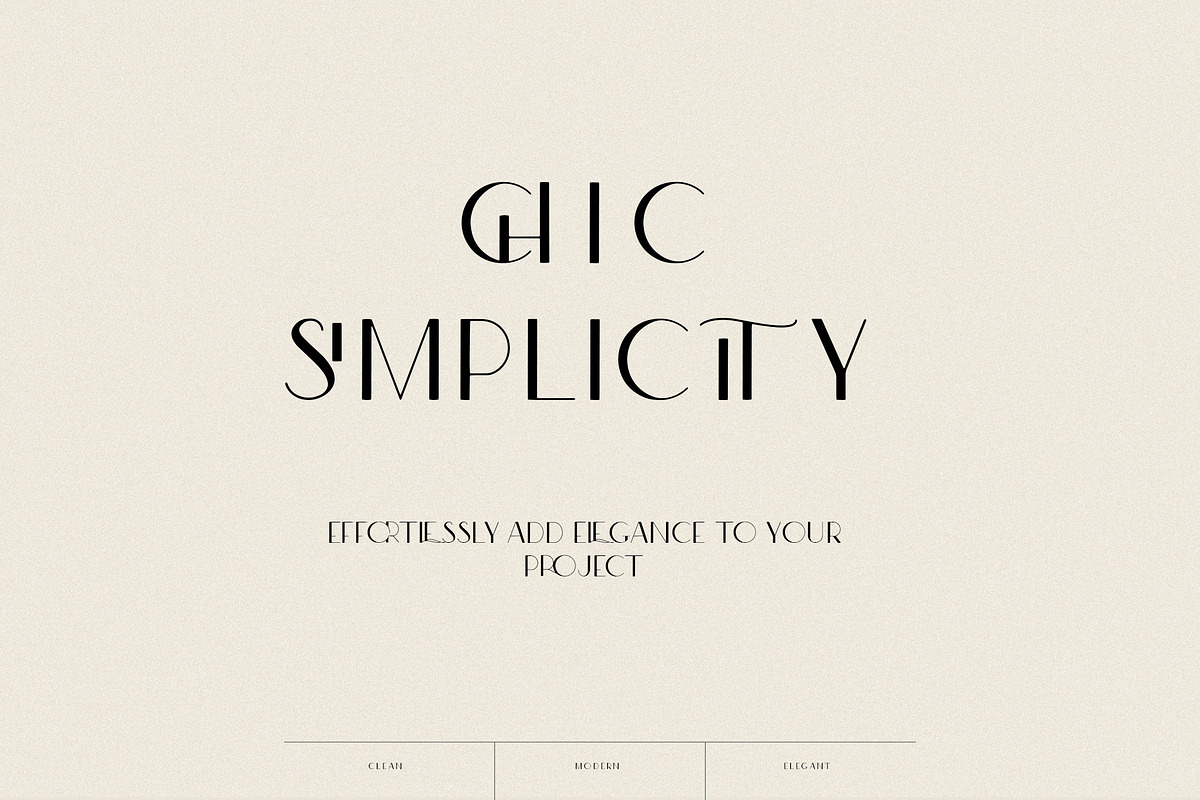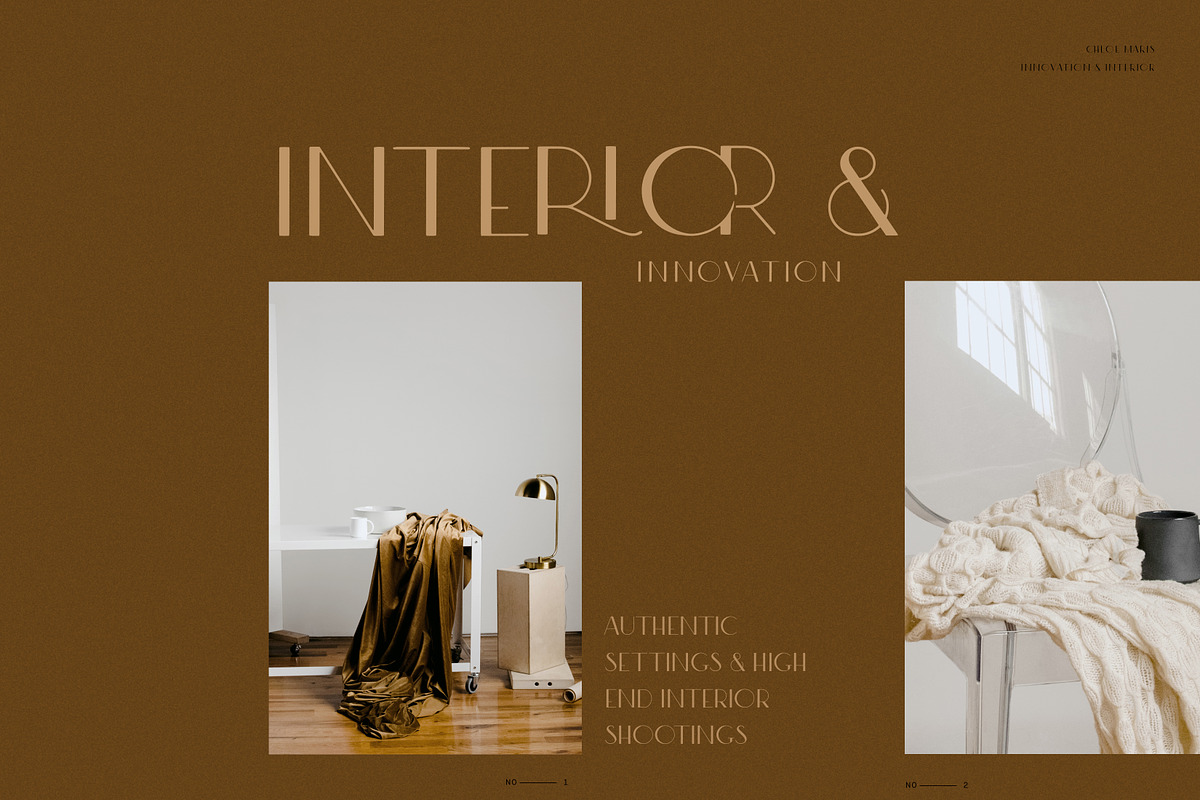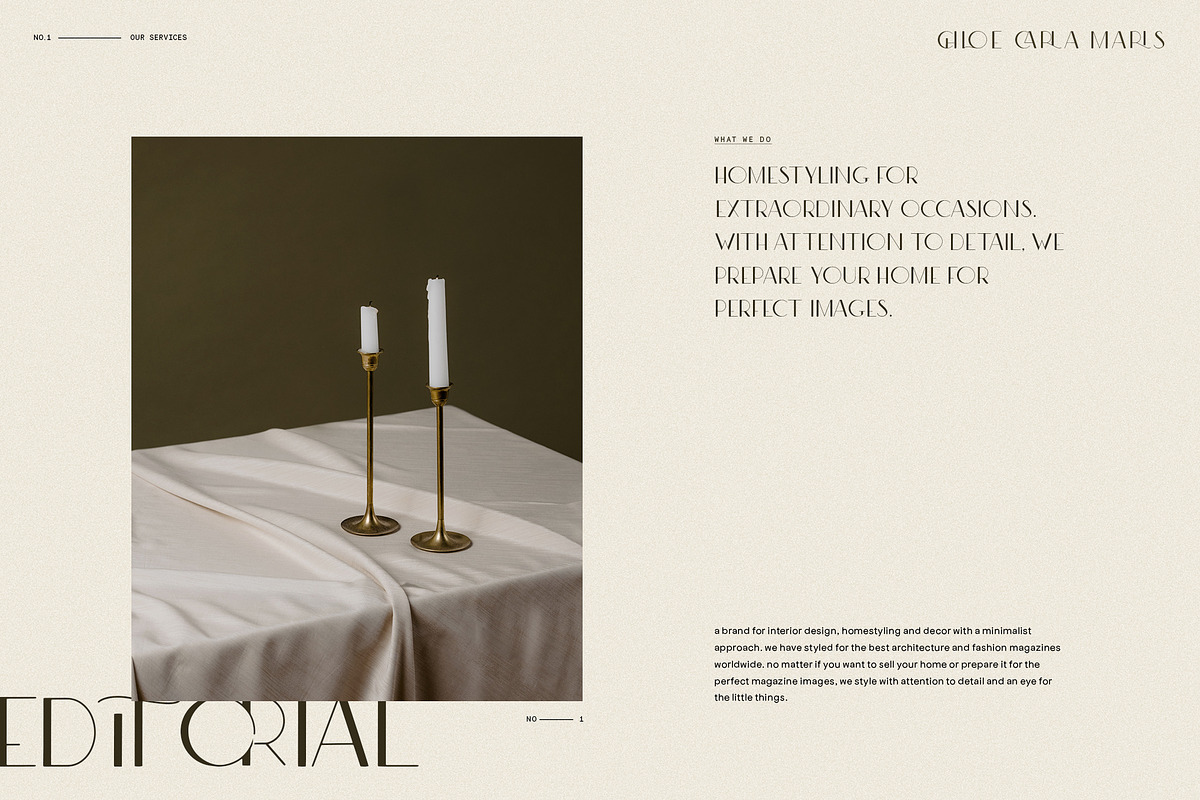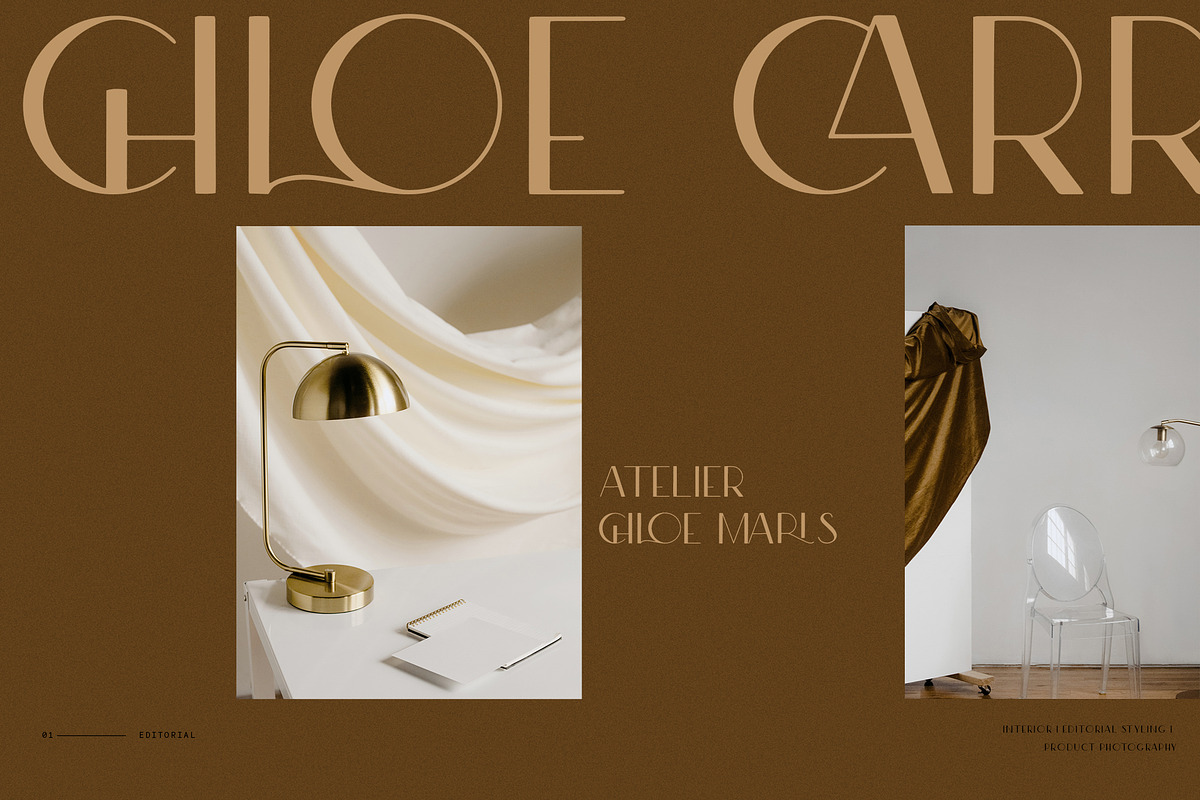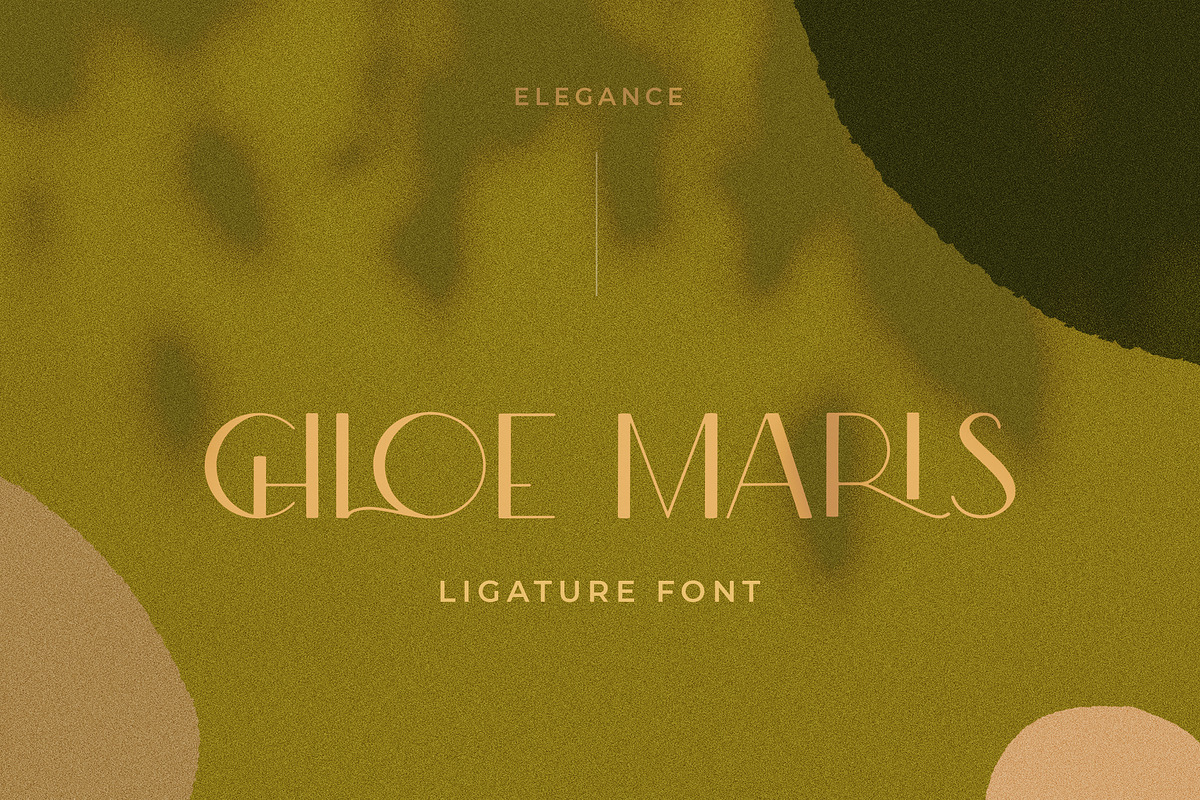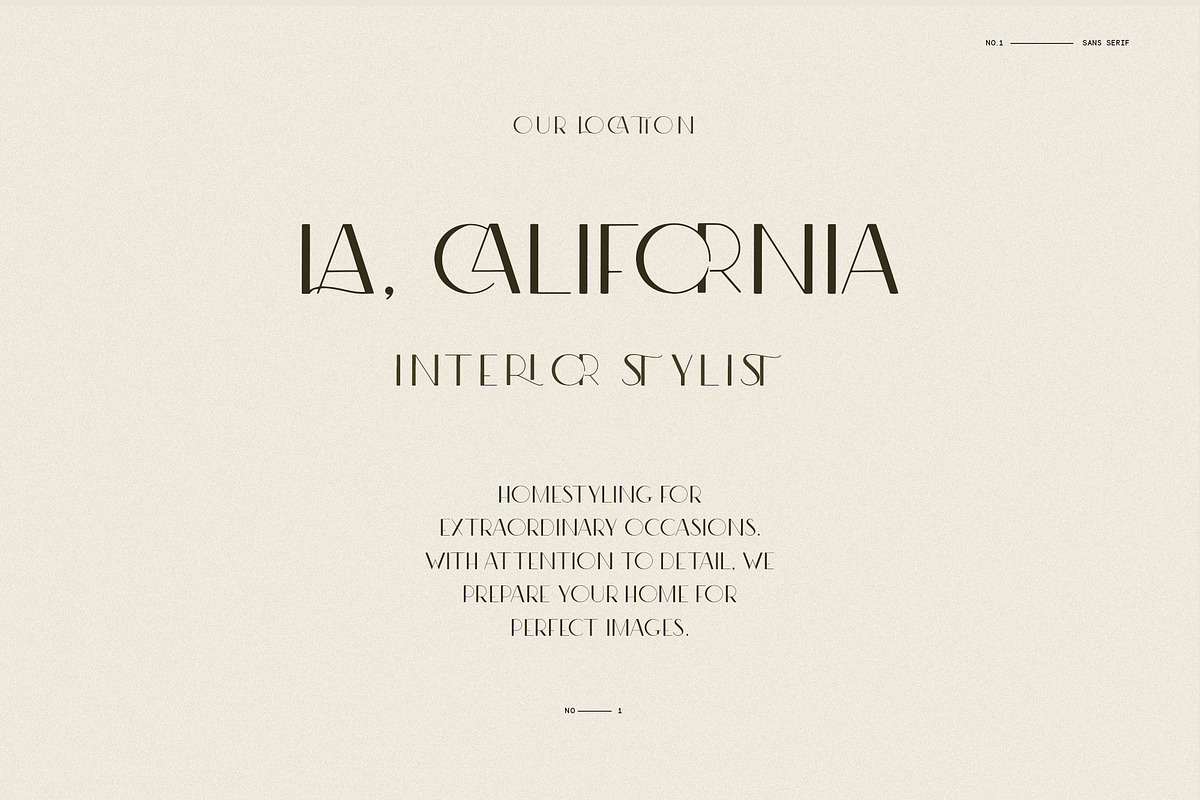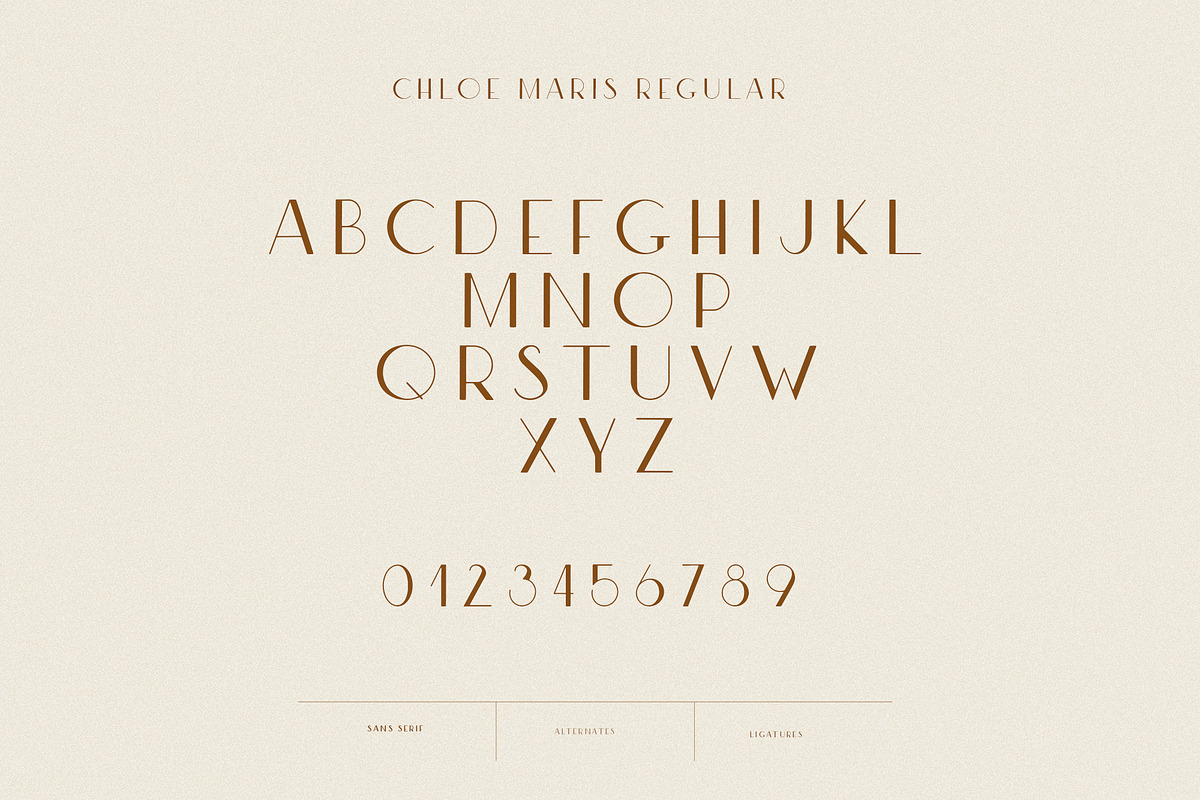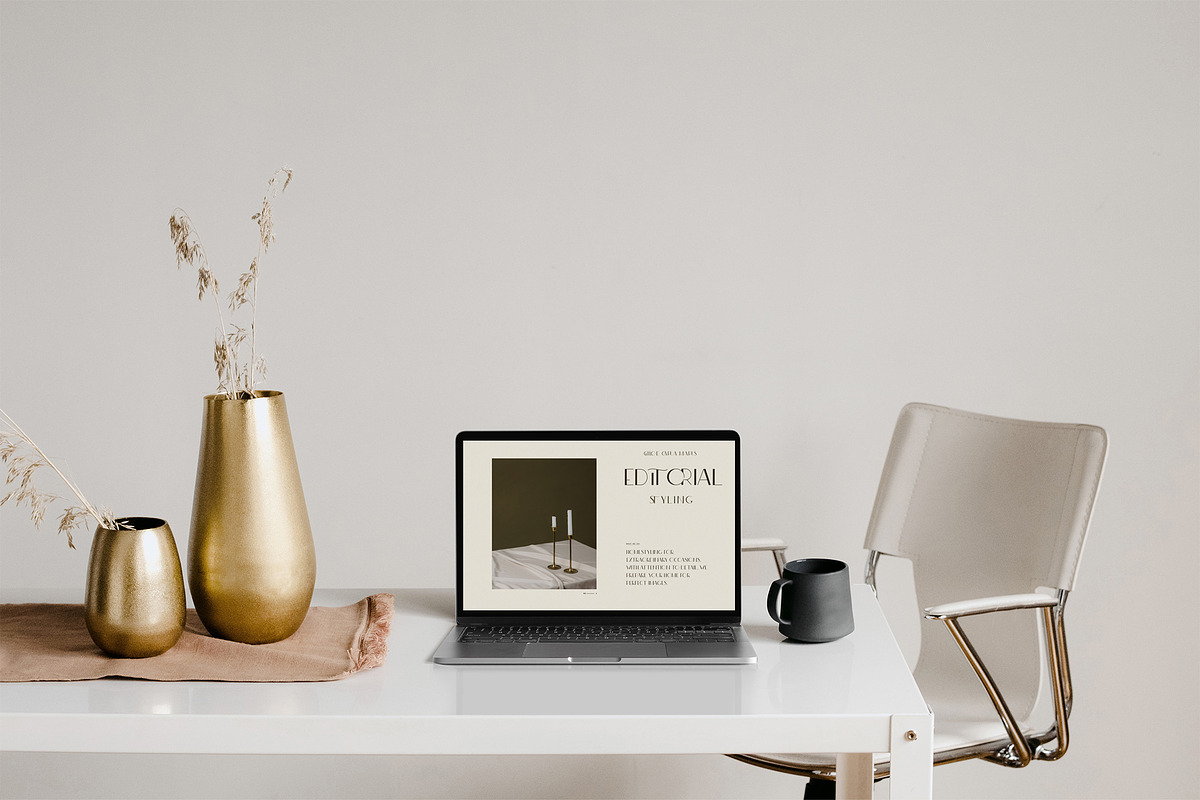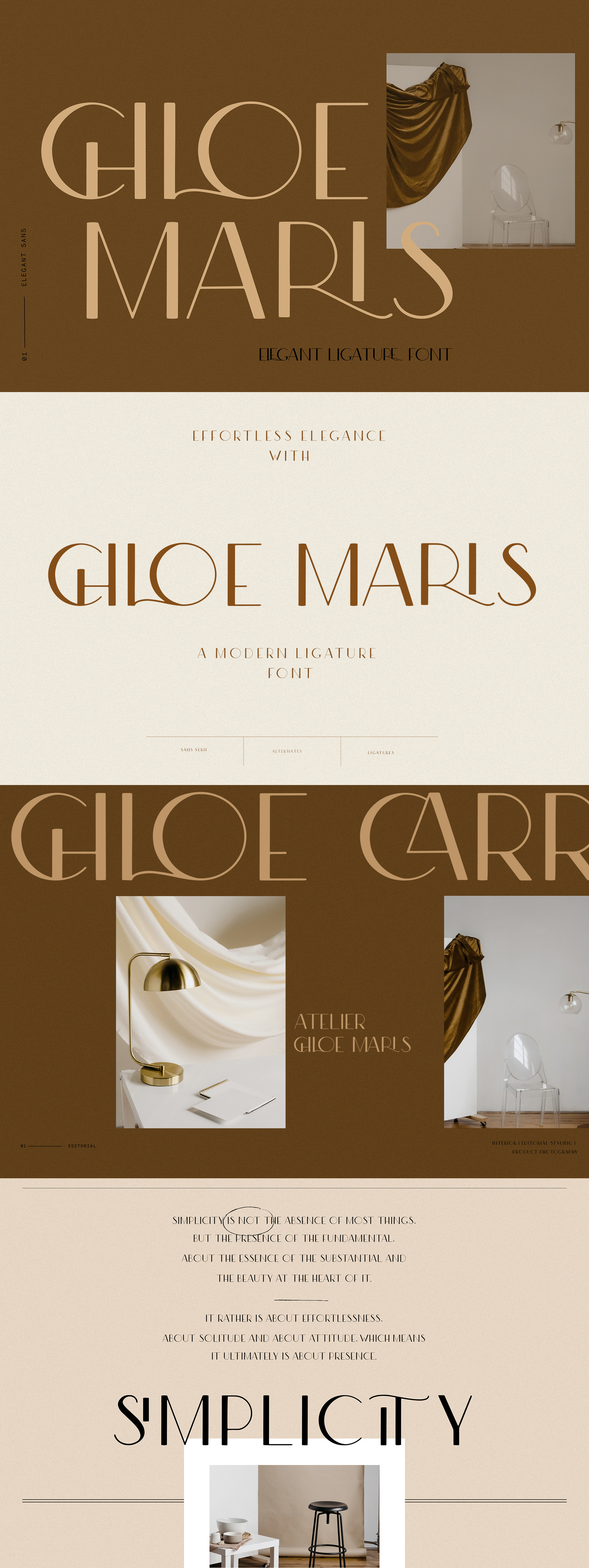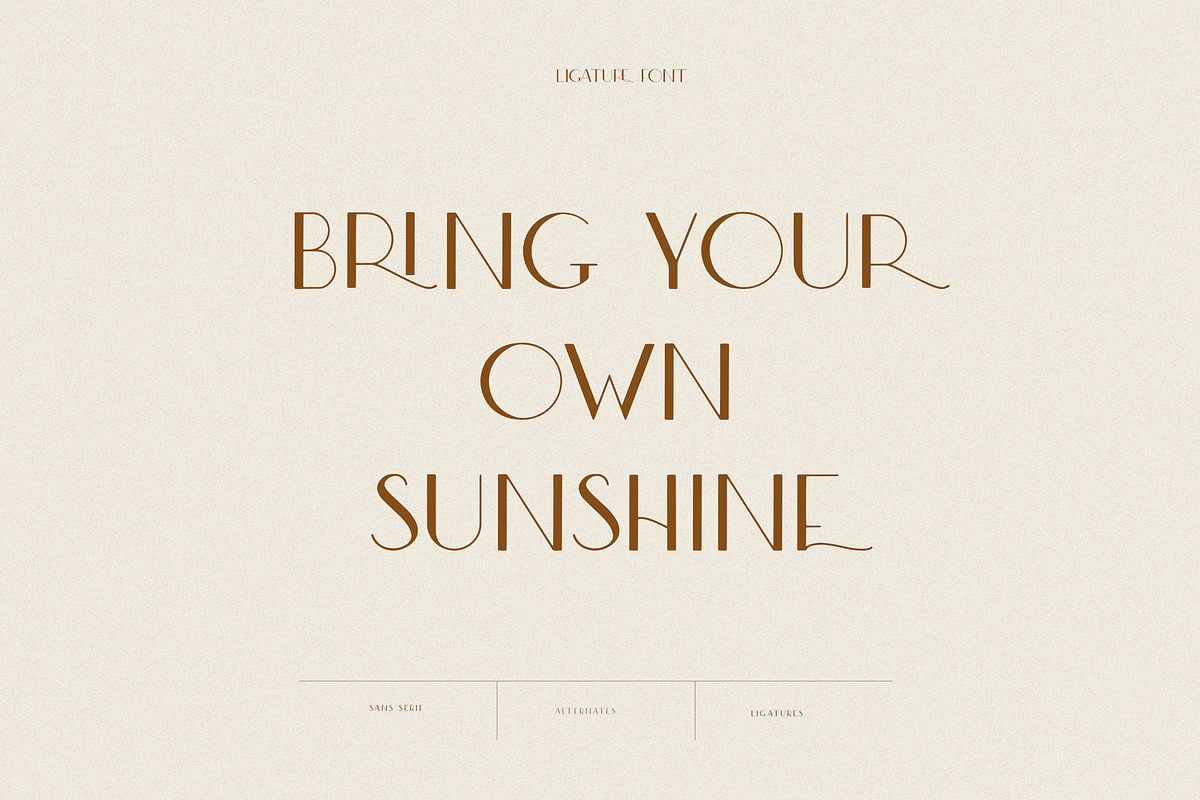
Modern Ligature Sans Serif Font
Chloe Maris is an elegant editorial style sans serif font, carefully crafted to add effortless elegance to your work. It comes with 50 ligatures and a variety of elegant alternates, which make the font extremely versatile. You can change it from a clean sans to a graceful accent font in a matter of minutes by turning on ligatures in Photoshop.
- includes 50 discretionary ligatures and a variety of alternates that you can access through the characters panel